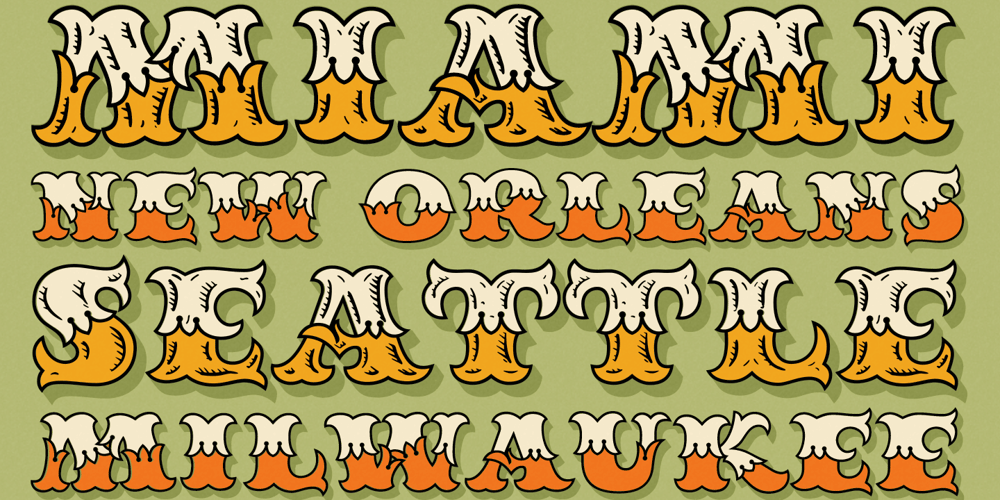
MFC Redding Monogram Font Family was designed by Brian J. Bonislawsky, James Lyles and published by Monogram Fonts Co.. MFC Redding Monogram contains 10 styles and family package options. The source of inspiration for MFC Redding Monogram is a highly ornate lettering style from the book, Letters and Lettering by Carlyle & Oring. This fantastic vintage sign painter style was originally depicted only with Capitals and Numbers, which we’ve lovingly recreated to include small caps for the purpose of Monogramming, Signs, and Headlines. We’ve even recreated the extruded shadow from the original specimens, but have taken it further by developing multiple layerable fonts that can be combined for effect. Download and view the MFC Redding Monogram Guidebook if you would like to learn a little more.